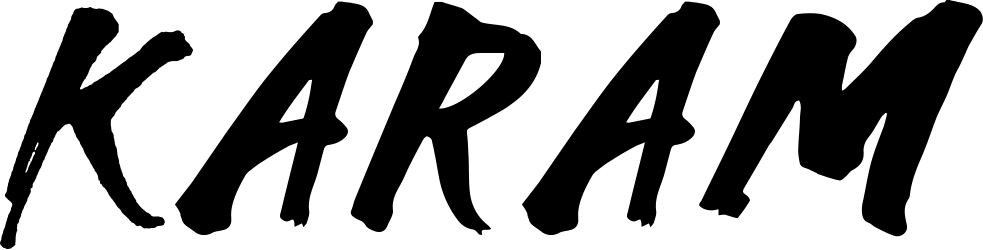
Karam Font
Is it a cool aesthetic look you wish to lend to your text? Then how about customizing your typography with Karam? This brush font also does an incredible job of adding a friendly and contemporary feel to your lettering.…
Is it a cool aesthetic look you wish to lend to your text? Then how about customizing your typography with Karam? This brush font also does an incredible job of adding a friendly and contemporary feel to your lettering. Exciting, isn’t it?
So go on and take advantage of its gentle touch for your posters, books, games, or else. Just note that it doesn’t include any lowercase, nor any digits and punctuations, but even so, it makes a great masterpiece.